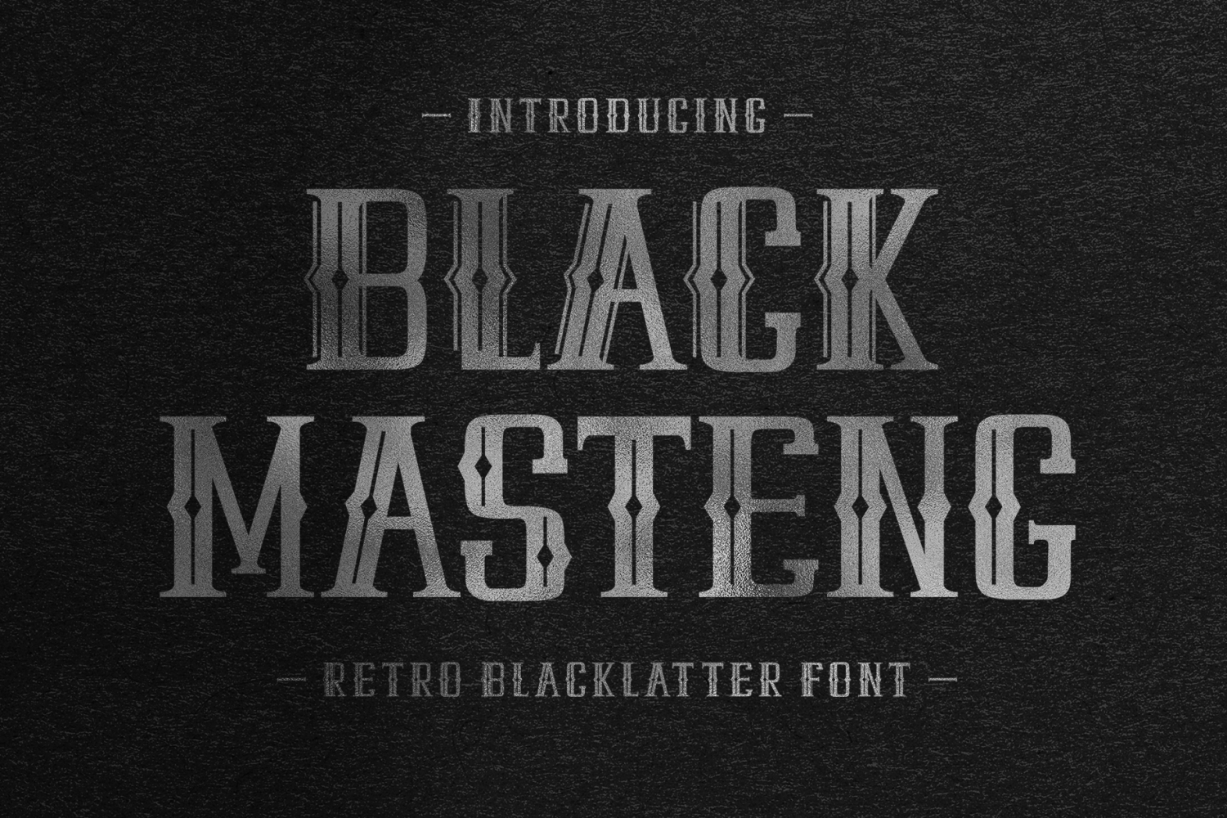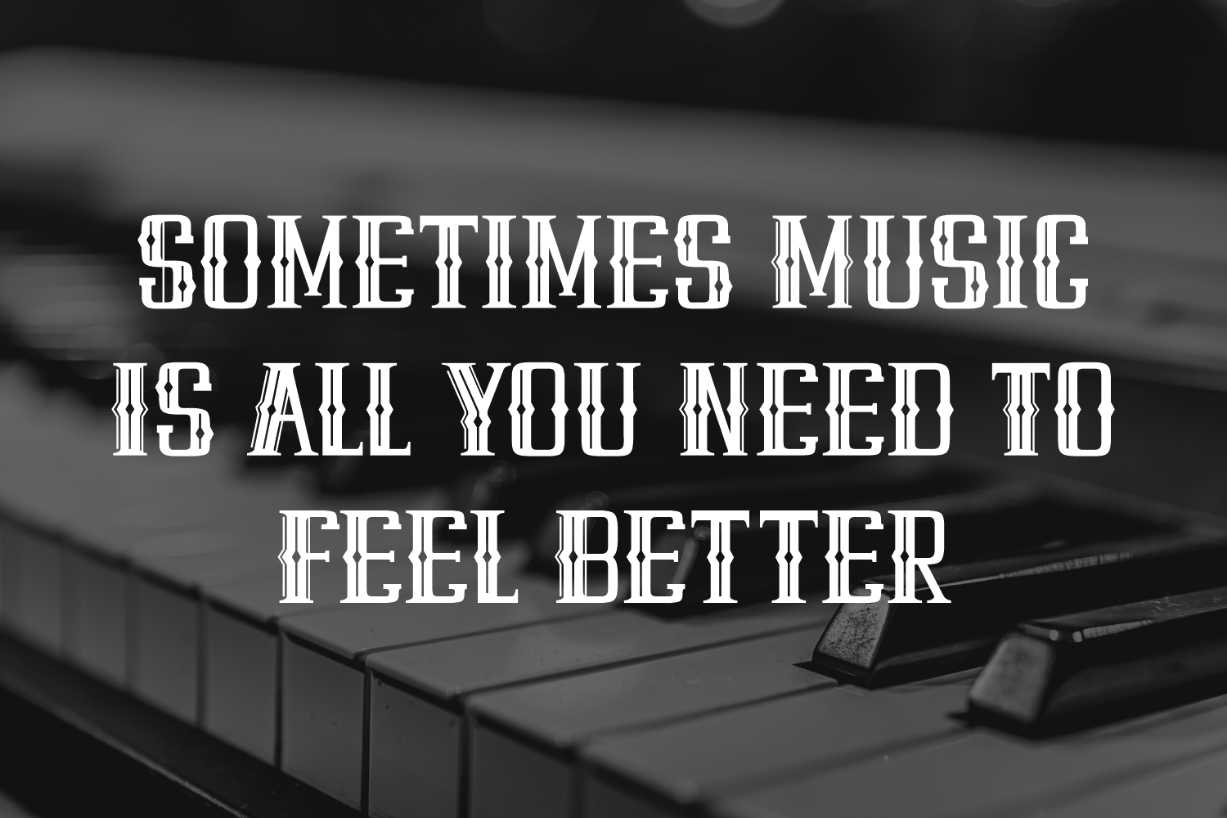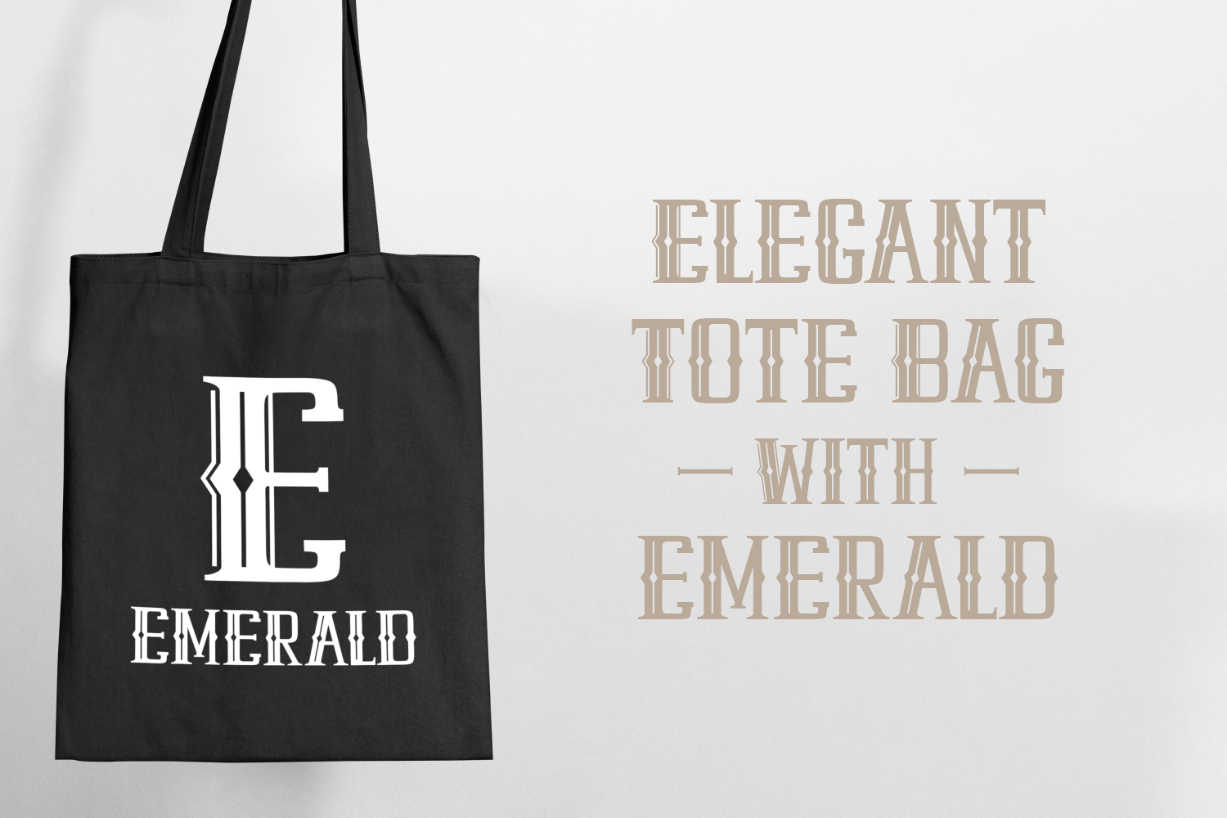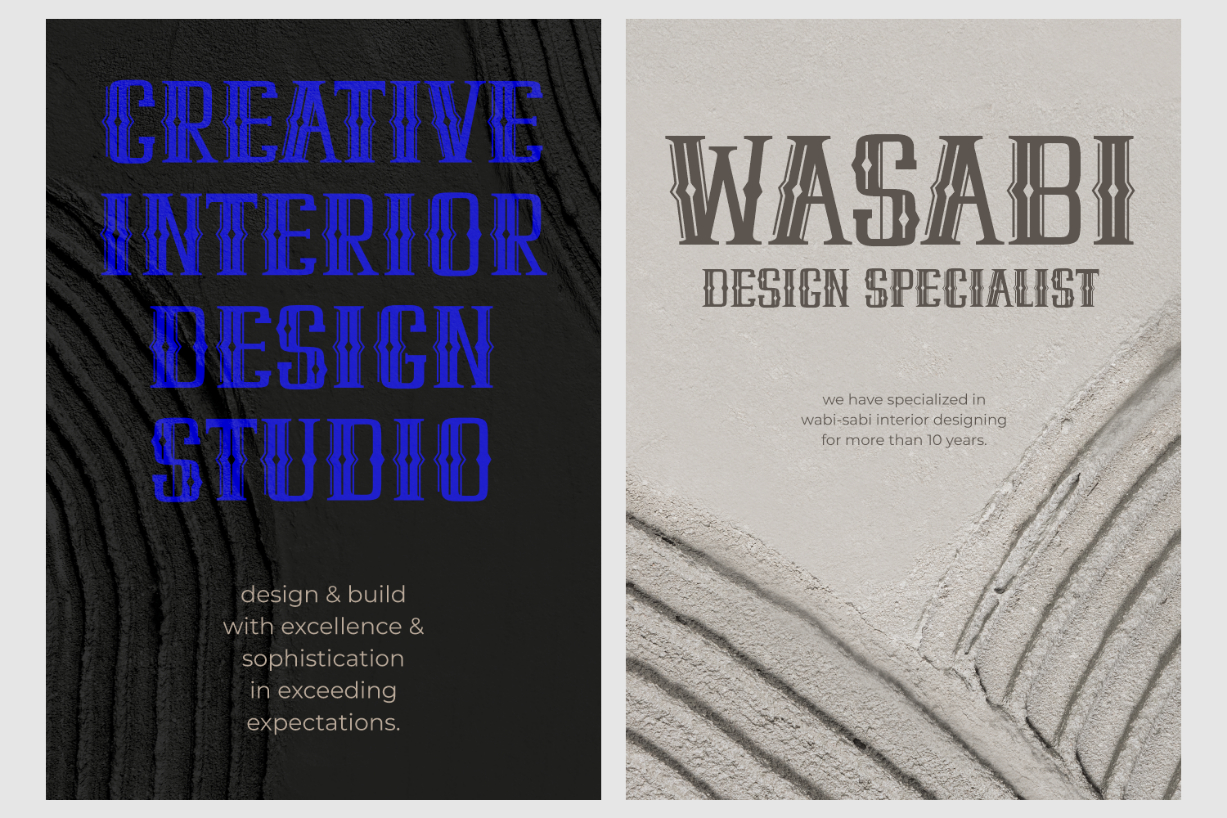
Black Masteng Font
About Black Masteng Font
Black Masteng is a retro-style blackletter font. This stunning typeface features a classy and unique aesthetic, making it ideal for creating memorable typography. Use it in your next creative project, and you will love the results!